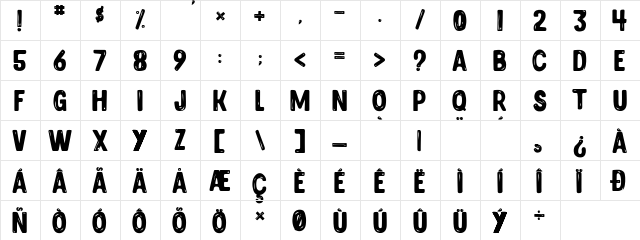
BULLES DE CHOCOLATS Regular
| Foundry | Maelle.K |
| Designer | Maelle.K |
Design Context for BULLES DE CHOCOLATS Typeface
BULLES DE CHOCOLATS takes a measured approach to typography — its balanced proportions and neutral character make it a reliable workhorse for both digital and print work.